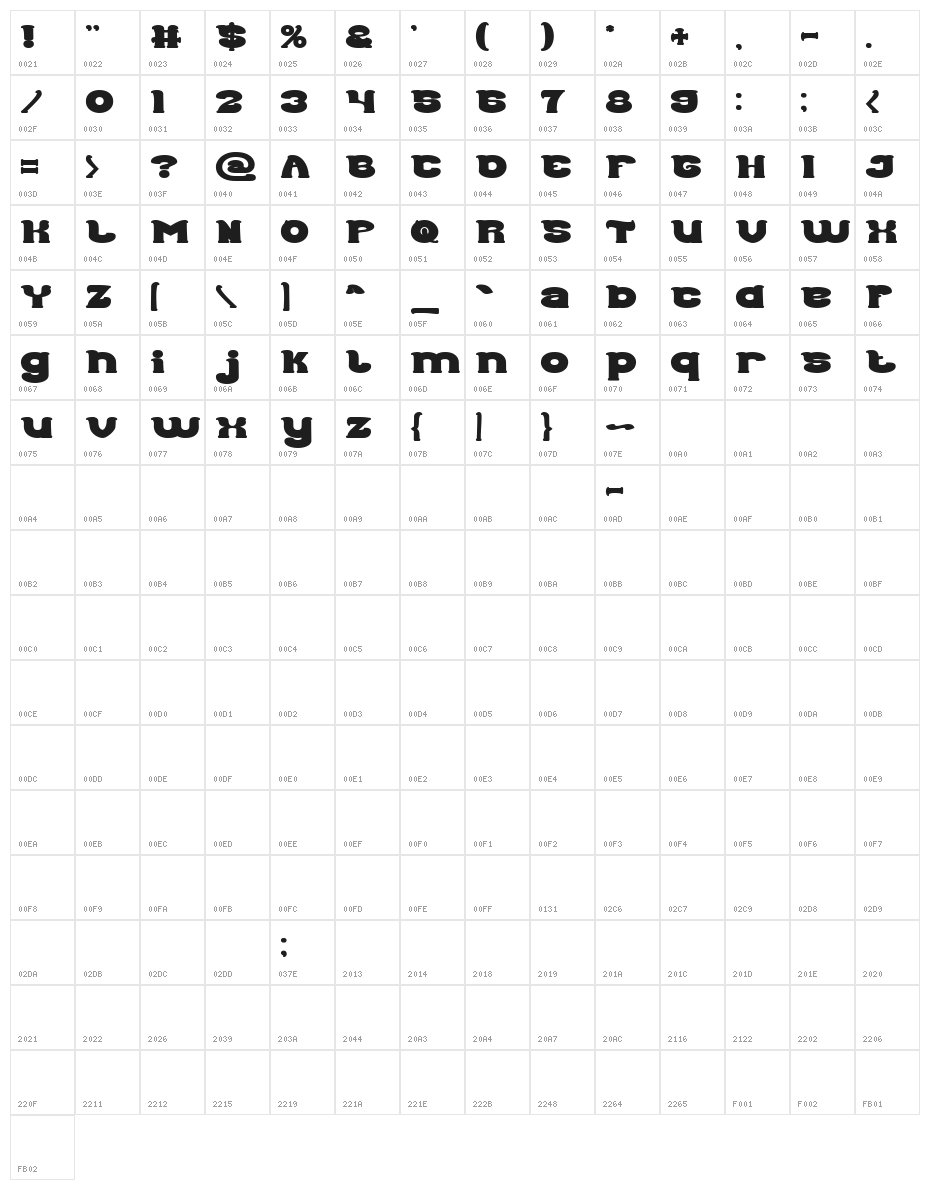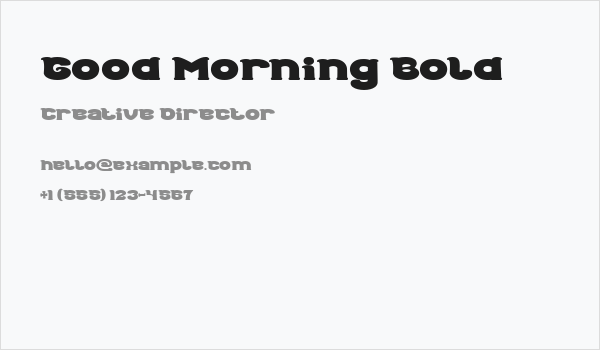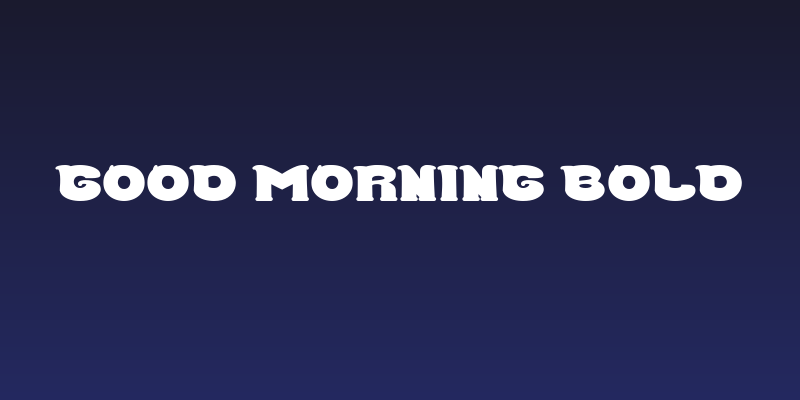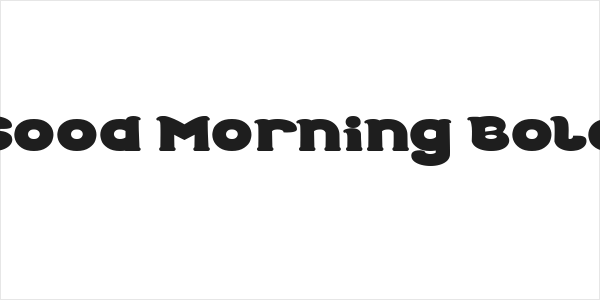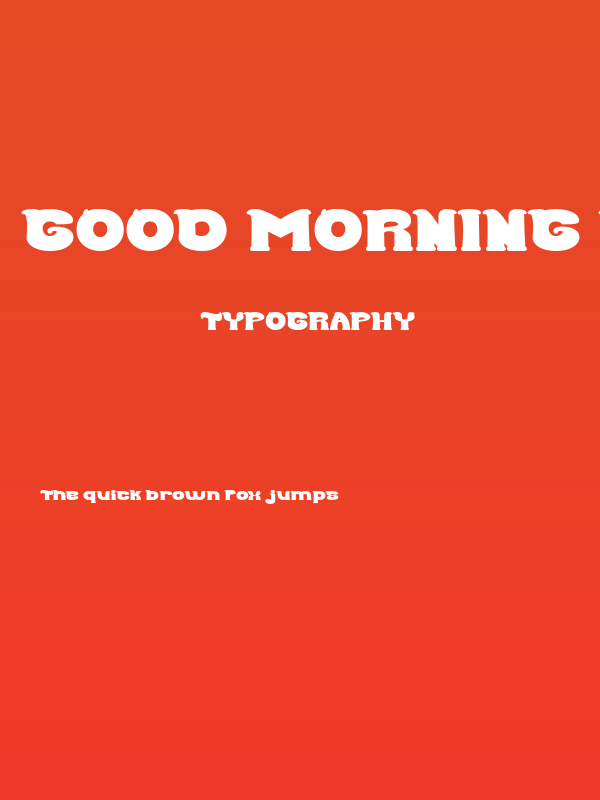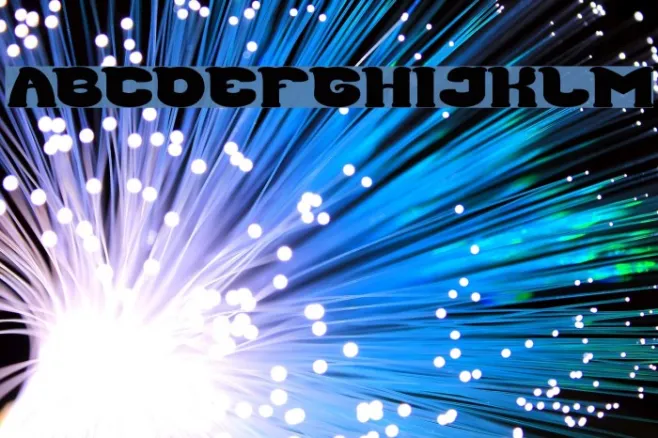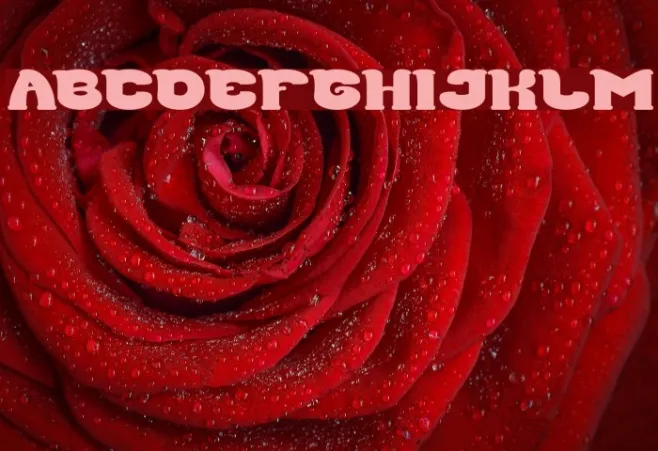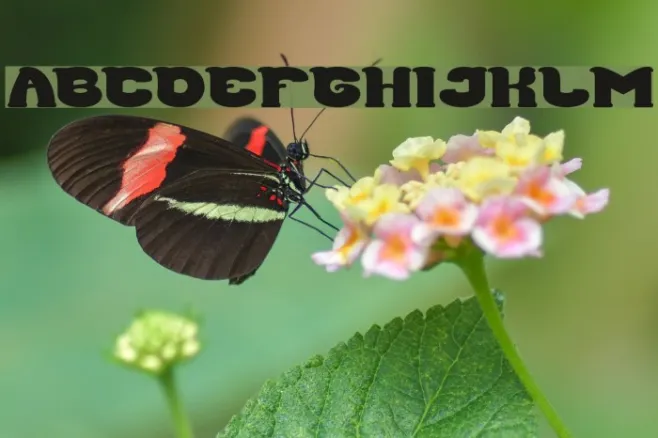
Good Morning Bold Font
Good Morning Bold Description
This font features a bold and playful design with rounded edges and a slightly whimsical style. The characters are thick and robust, giving a strong visual impact. The uppercase and lowercase letters maintain a consistent width, while the numbers and special characters are designed to match the overall aesthetic. The font's unique style is characterized by its bubbly appearance, making it stand out in any design project.
| Overall Style | Playful, Bold, Decorative |
| Use Case | Headlines, Posters, Branding |
| Proposed Projects | Ideal for children's books, playful branding, posters, and any project requiring a fun and bold typeface. |